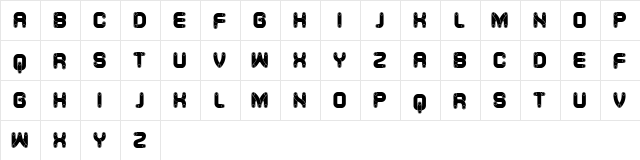
Canal Dark Regular
Design Context for Canal Dark Typeface
Canal Dark offers clean, dependable letterforms without strong stylistic allegiance, making it a practical choice for designers who need flexibility.